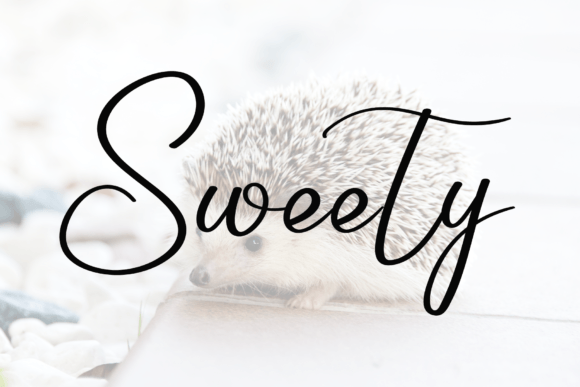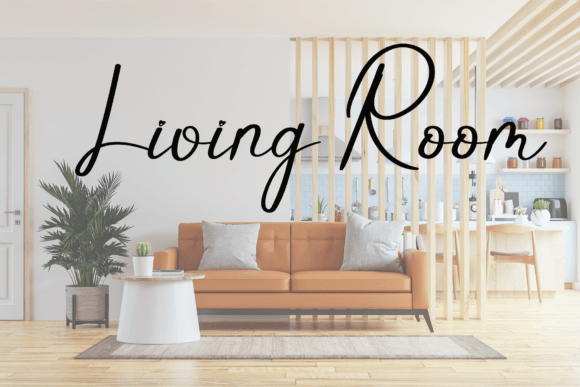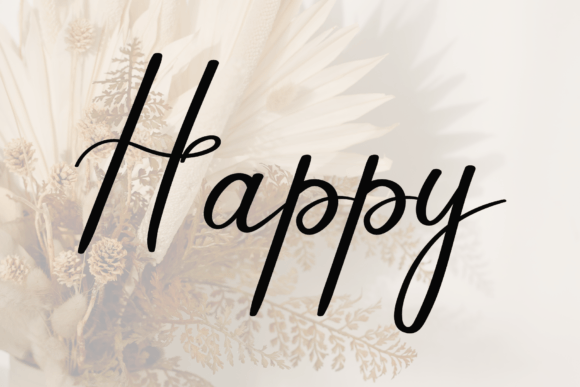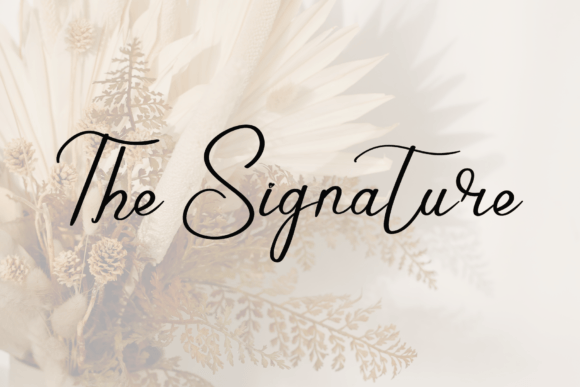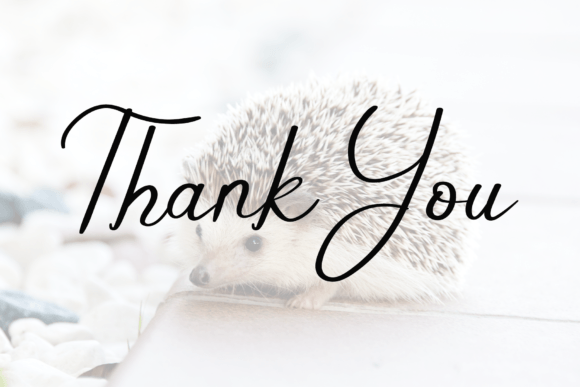
Introducing Animal Font: A Simple Handwritten Delight
Are you on the lookout for a font that can add a touch of simplicity and natural elegance to your designs? Look no further than Animal Font! This beautiful, handwritten font is perfect for a wide range of projects, from greeting cards to headlines, and is sure to become a staple in your design toolkit.
What is Animal Font?
Animal Font is a simple, yet charming handwritten font that is designed to bring a sense of warmth and approachability to your designs. With its clean lines and effortless charm, this font is perfect for designers and crafters who want to add a personal touch to their work.
Key Features of Animal Font
- Versatile: Animal Font is incredibly versatile, making it suitable for a wide range of applications, from greeting cards and invitations to headlines and titles.
- Handwritten: This font has a beautiful, handwritten feel that adds a touch of personality to any design.
- Simple and Natural: Animal Font has a simple, natural feel that makes it perfect for designs that require a subtle, understated approach.
Uses for Animal Font
Animal Font is perfect for a wide range of design projects, including:
- Greeting Cards: Add a personal touch to your greeting cards with Animal Font’s charming, handwritten style.
- Headlines and Titles: Use Animal Font to add a touch of elegance and sophistication to your headlines and titles.
- Invitations: Make your invitations stand out with Animal Font’s unique, handwritten charm.
- Signage: Animal Font is perfect for signage, adding a warm and welcoming feel to any business or event.
Why Choose Animal Font?
There are many reasons why Animal Font is a great choice for designers and crafters, including:
- Ease of Use: Animal Font is incredibly easy to use, making it perfect for designers of all skill levels.
- Flexibility: This font is highly versatile, making it suitable for a wide range of design applications.
- Unique Style: Animal Font has a unique, handwritten style that sets it apart from other fonts.
Tips for Using Animal Font
Here are a few tips for getting the most out of Animal Font:
- Experiment with Sizes: Animal Font looks great in a variety of sizes, so don’t be afraid to experiment to find the perfect size for your design.
- Pair with Other Fonts: Animal Font pairs well with a variety of other fonts, so try combining it with other fonts to create a unique look.
- Use for Headlines and Titles: Animal Font is perfect for headlines and titles, adding a touch of elegance and sophistication to any design.